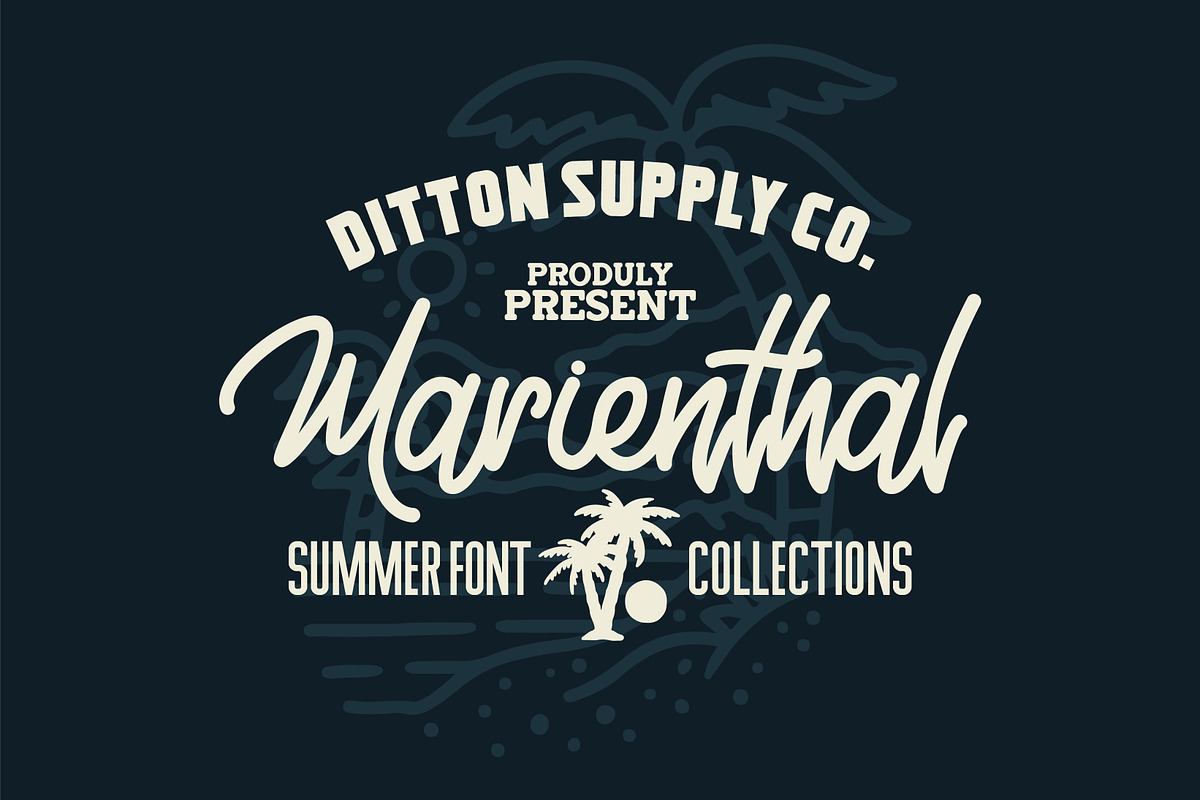
Marienthal Font Bundle + Extras! Free Download
Marienthal Font Bundle + Extras Free Download
Marienthal Font Bundle + Extras Free Download is a premium collection of beautifully crafted fonts and additional design elements that will elevate your creative projects. This bundle includes a versatile serif font, along with stylish scripts, alternate characters, and extra design elements that can be used across a wide range of branding, packaging, editorial design, and creative projects.
Whether you're working on logos, product labels, wedding invitations, or website design, the Marienthal Font Bundle offers a refined and cohesive look. The extras in the bundle provide a unique and personalized touch, making it easy to customize your designs with flair and elegance.